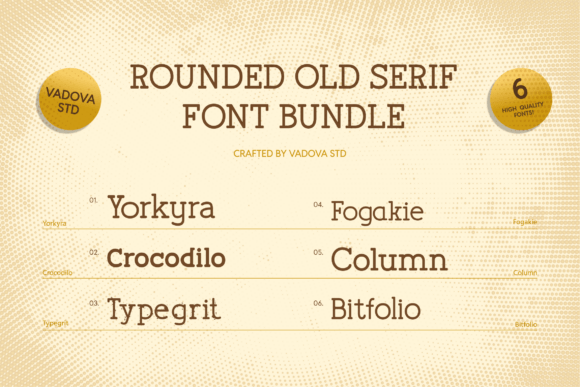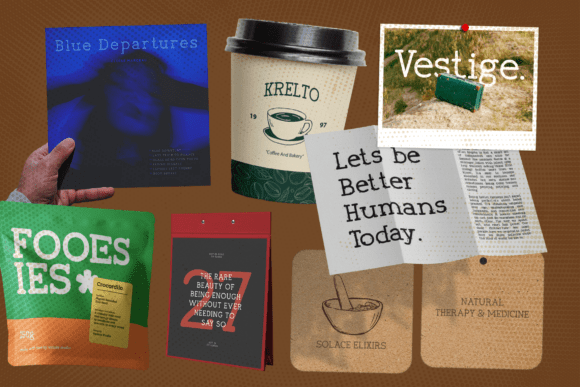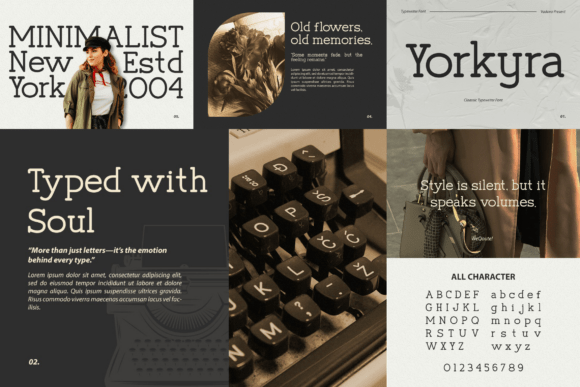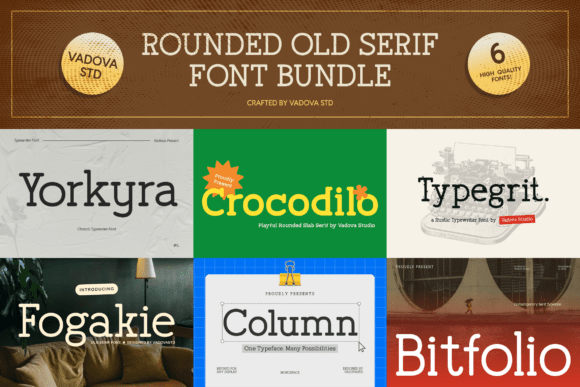
Introduction to Rounded Old Font
Rounded Old Serif Font Bundle The Rounded Old Serif Font Bundle is a charming collection of vintage-inspired serif typefaces designed with soft curves and classic old-style character.
Blending retro warmth with rounded serif details, this bundle brings a nostalgic yet friendly typographic personality to your creative projects Each typeface features distinctive rounded serif forms that maintain the timeless elegance of traditional typography while adding a softer and more approachable feel.
Key Features of Rounded Old Font